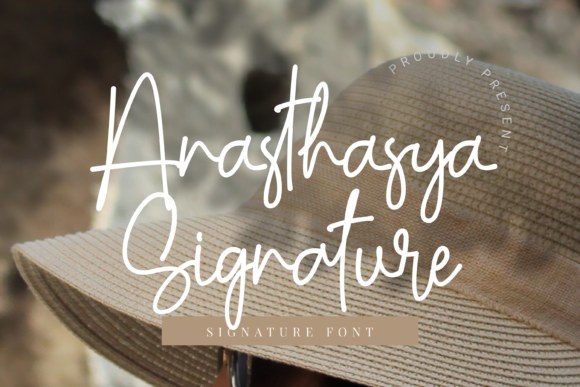
The Perfect Brushstroke: Unlocking Creativity with the Anasthasya Signature Font
There’s a moment when inspiration strikes, and your mind starts racing with ideas. You’re in the midst of brainstorming, and your imagination is overflowing with possibilities. The room is filled with sketches, scribbles, and half-finished designs. And then, it hits you – the perfect font to elevate your masterpiece. That’s when you discover the Anasthasya Signature Font, a game-changing addition to your design arsenal.
This stylish and asymmetrical script font is a breath of fresh air for designers looking to add a touch of elegance to their projects. With its clean, thin, and smooth vibe, the Anasthasya Signature Font is a must-have for anyone seeking to create visually stunning designs. Whether you’re working on a branding project, a wedding invitation, or a social media campaign, this font is sure to make your work stand out.
Anasthasya Signature Font Key Features
- Unique Characteristics: Anasthasya Signature Font features a unique blend of modern and elegant design elements, including flowing curves, subtle flourishes, and intricate details, making it perfect for signature designs, logos, and branding materials.
Anasthasya Signature Font Review
I recently had the chance to work with the Anasthasya Signature Font, and I must say it’s a unique addition to any design project. ✨ Here are some aspects that stood out to me:
- Whimsical Feel**: The font’s hand-drawn, cursive nature gives it a whimsical feel that’s perfect for creative projects or personal branding.
- Highly Customizable**: With a wide range of font styles and sizes available, you can easily tailor the font to fit your design needs.
- Beautiful Scripting**: The font’s script-based design makes it ideal for creating beautiful, flowing text that’s sure to catch the eye.
- Readability Issues**: In certain font sizes or styles, the text can become difficult to read, particularly for those with visual impairments.
Overall, I’d say the Anasthasya Signature Font is a great choice for designers looking to add a touch of personality to their work. While it may have some limitations, its unique charm and high level of customization make it a valuable addition to any design toolkit.
Use Anasthasya Signature Font for:
– Logos and branding materials
– Signature designs and business cards
– Creative marketing materials and social media posts